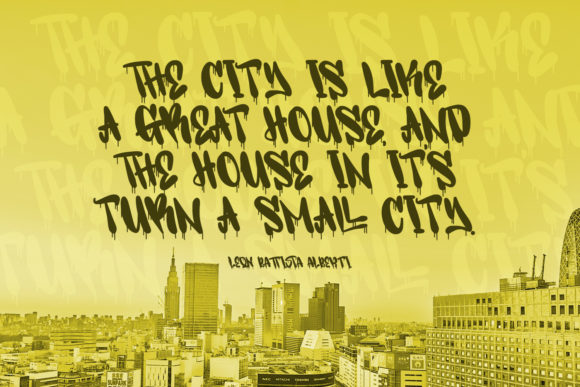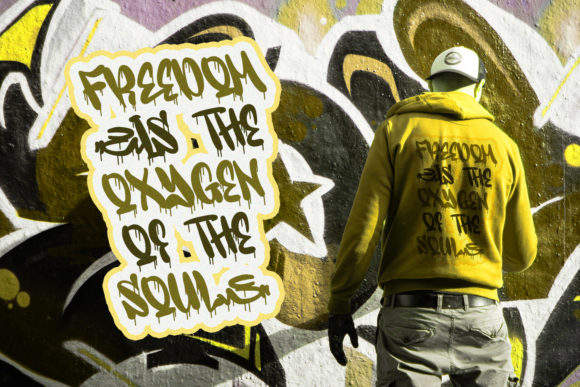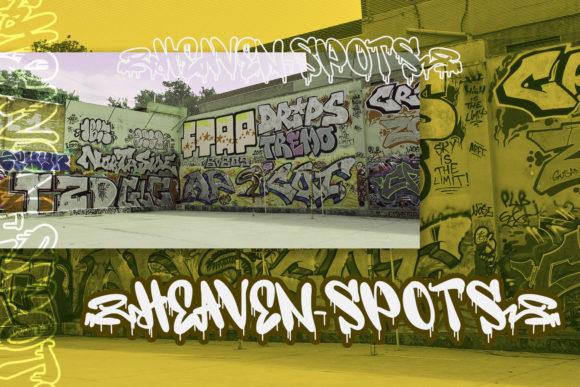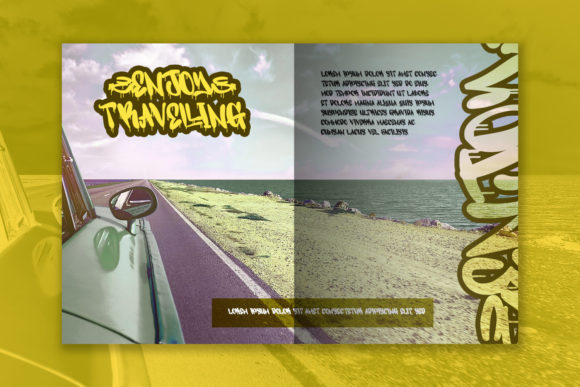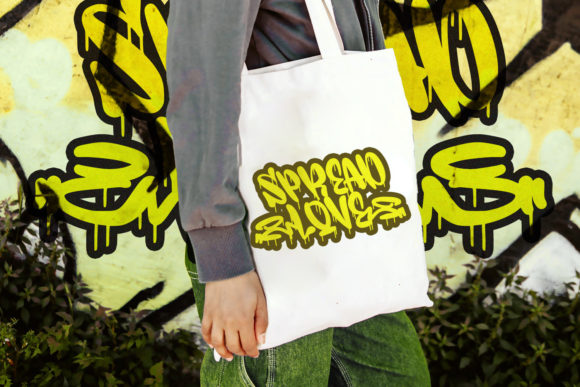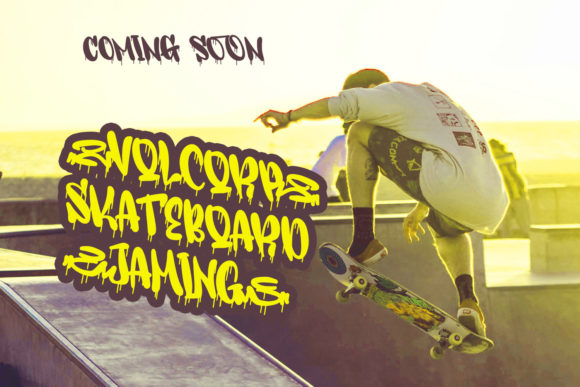
Introduction to Maybach Font
Have you ever been stuck on a creative project, staring blankly at a blank canvas, desperate for that one element that brings your design to life? For designers, finding the perfect font can be a game-changer. Imagine being able to infuse your work with a bold, street art vibe that screams attitude and style. Enter the Maybach Font, a dramatic and eye-catching display font that’s perfect for adding that extra oomph to your designs.
As a valuable design resource, the Maybach Font offers a high-quality, graffiti-styled aesthetic that’s perfect for anything from jerseys and sportswear to skateboards and more. With its transparent background, this font is incredibly versatile and can be easily layered over images or used as a standalone design element.
Key Features of Maybach Font
- Unique, luxurious design inspired by high-end vehicles, making it perfect for creative projects and design resources.
- Supports Latin and Cyrillic scripts, making it suitable for a wide range of languages and creative projects.
- Perfect for designers, artists, and creatives working on luxury-themed projects, branding, and advertising campaigns.
Honest Review: Maybach Font
As a designer, I’m always on the lookout for high-quality design resources to elevate my creative projects. The Maybach Font is one such resource that caught my attention, and I’m excited to share my honest review with you.
- Unique and elegant design: The Maybach Font boasts a sophisticated and luxurious feel that’s perfect for high-end branding and marketing materials.
- Transparent background: While the font’s design is stunning, it’s worth noting that it has a transparent background, which may require some extra work to set up in your design application.
- Limited character set: The Maybach Font has a relatively small character set, which may limit its use in certain creative projects.
Overall, the Maybach Font is a fantastic addition to any designer’s toolkit. Its elegant design and high-quality vectors make it an excellent choice for creative projects, and the fact that it’s free to download is a major bonus. Just be aware of the limitations mentioned above, and you’ll be well on your way to creating stunning designs with the Maybach Font.
Tips for Getting the Most Out of Maybach Font
To get the most out of the Maybach Font, use a transparent background to ensure that the font stands out in your design. You can also experiment with different font sizes and styles to create a unique look. Additionally, consider using the font in conjunction with other design elements, such as graphics and images, to create a visually appealing design.
Common Use Cases for Maybach Font
The Maybach Font is commonly used in a variety of design projects, including business cards, brochures, and website headers. Its high-quality design and transparent background make it an ideal choice for creative projects where a professional look is desired.